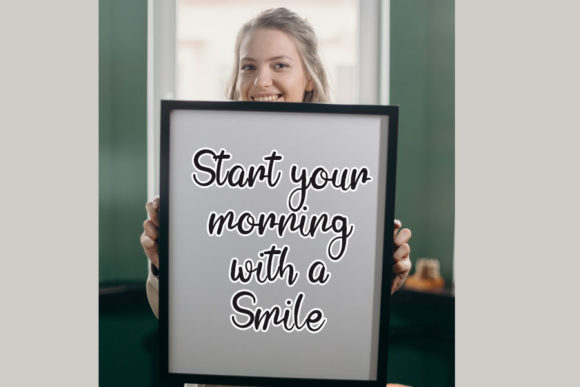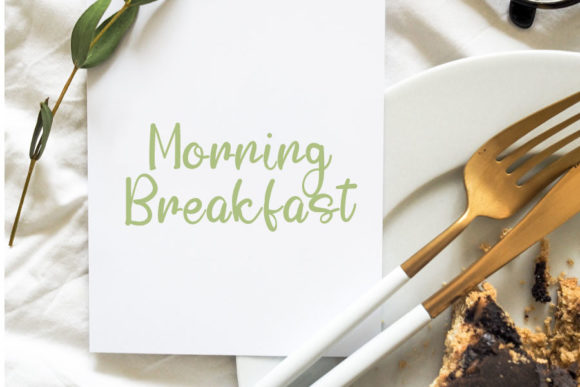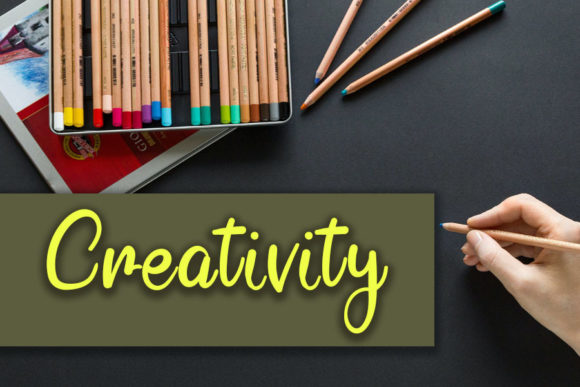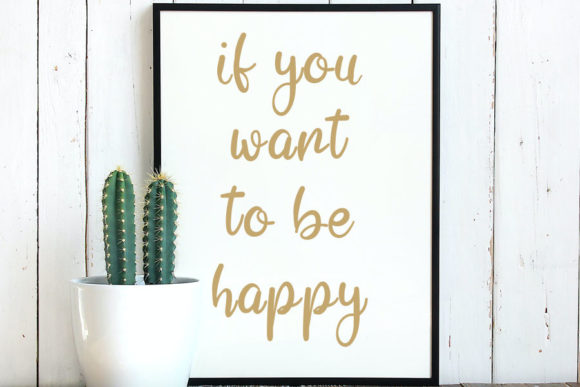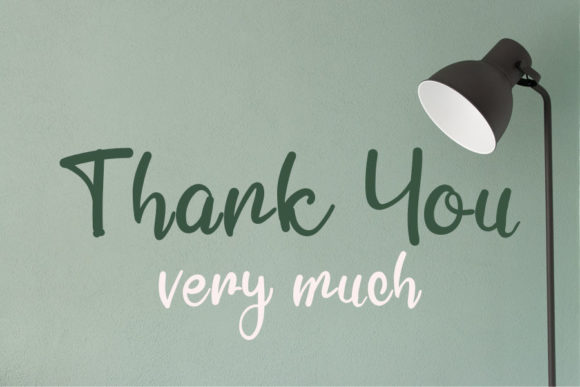
Second Chance Font
About Second Chance Font
Second Chance is a cute and friendly handwritten font. Playful and flowing, this font is the perfect fit for all of your logos, branding, posters, and crafty DIY projects.